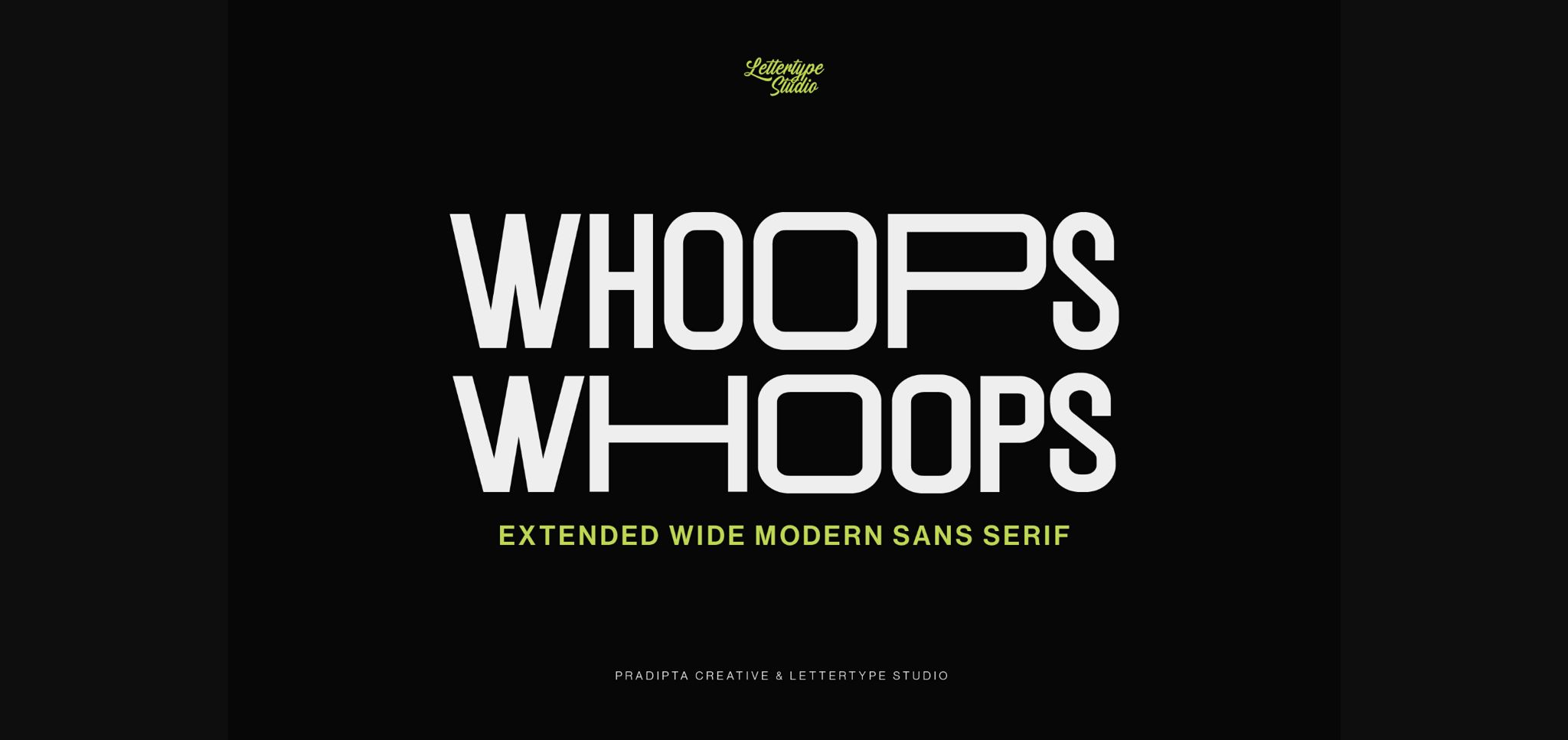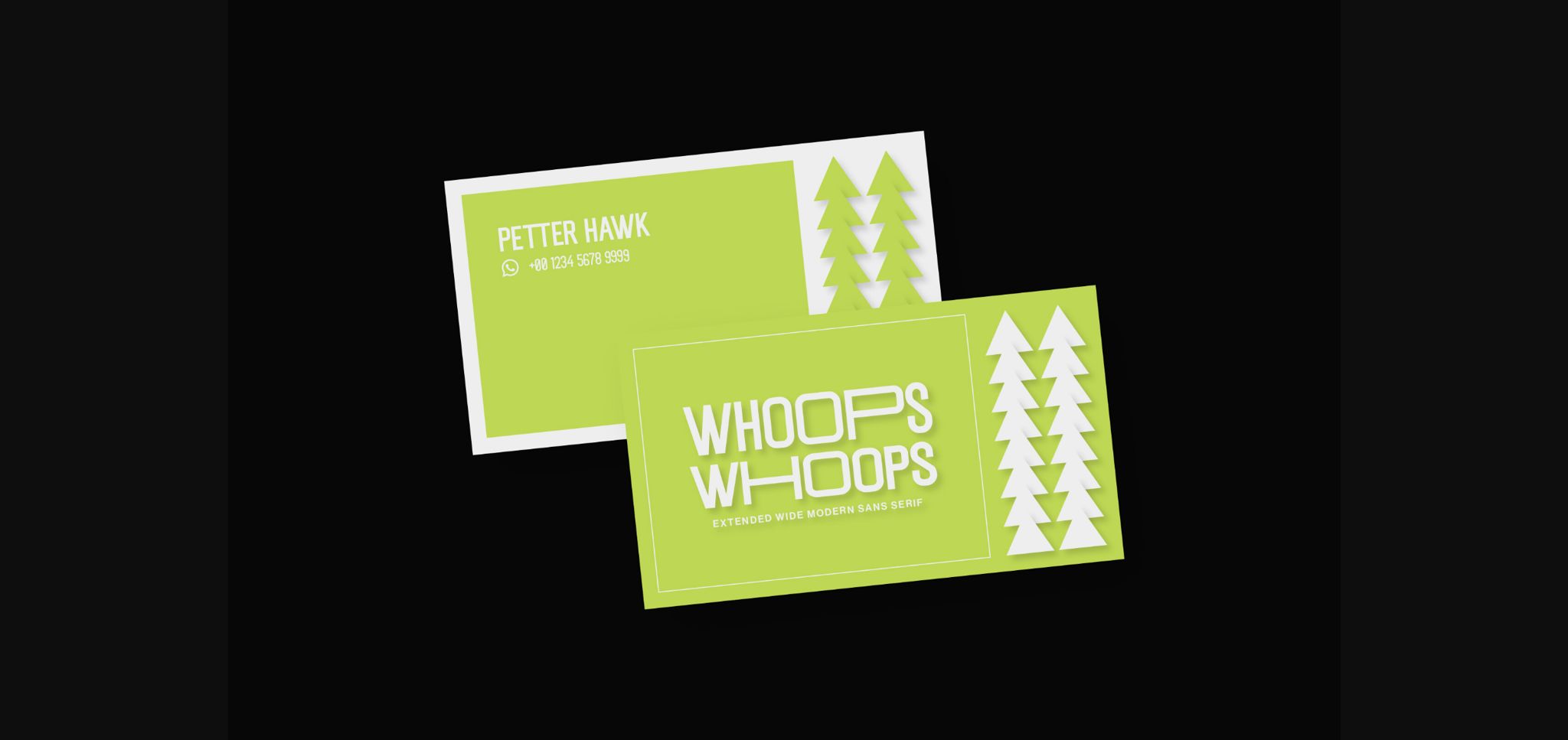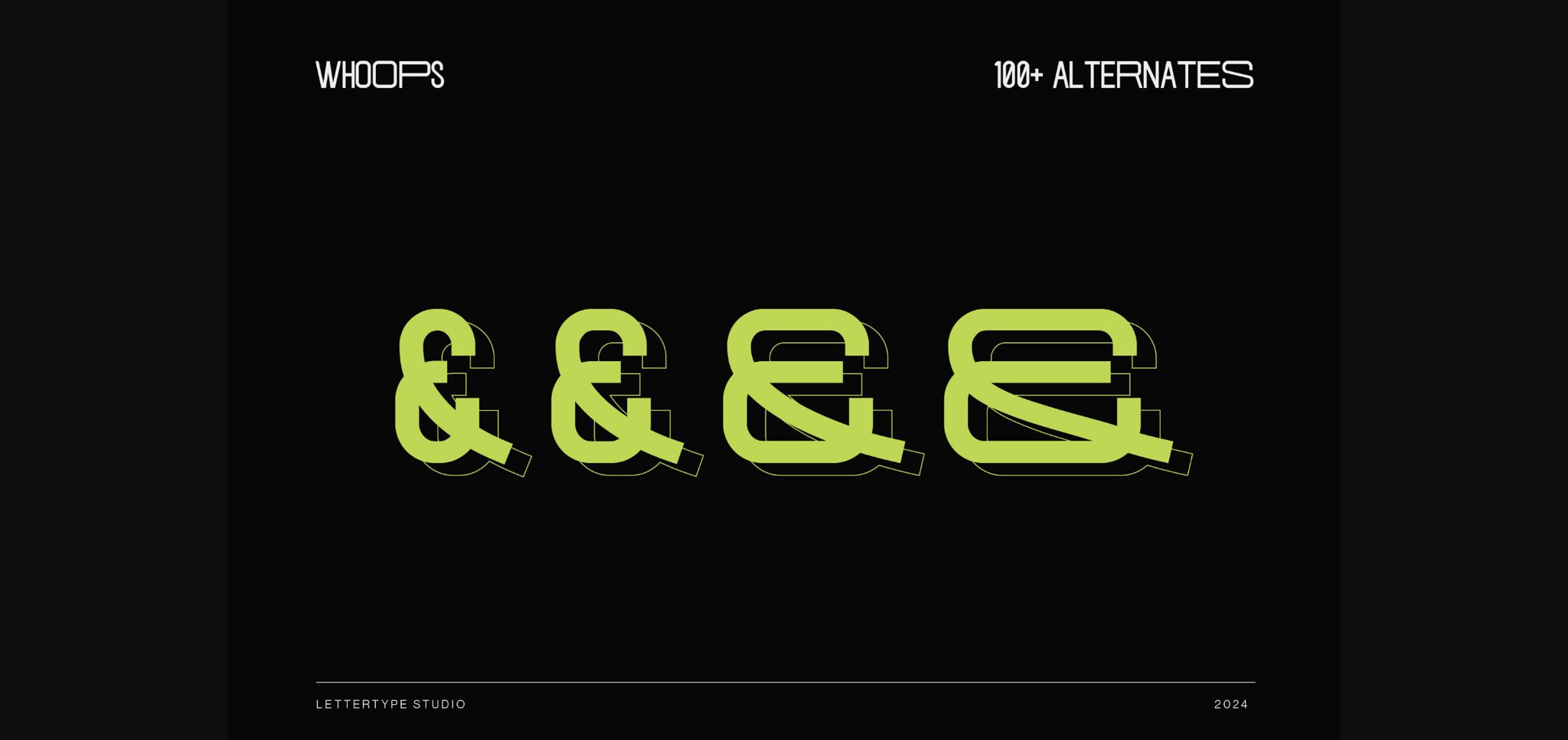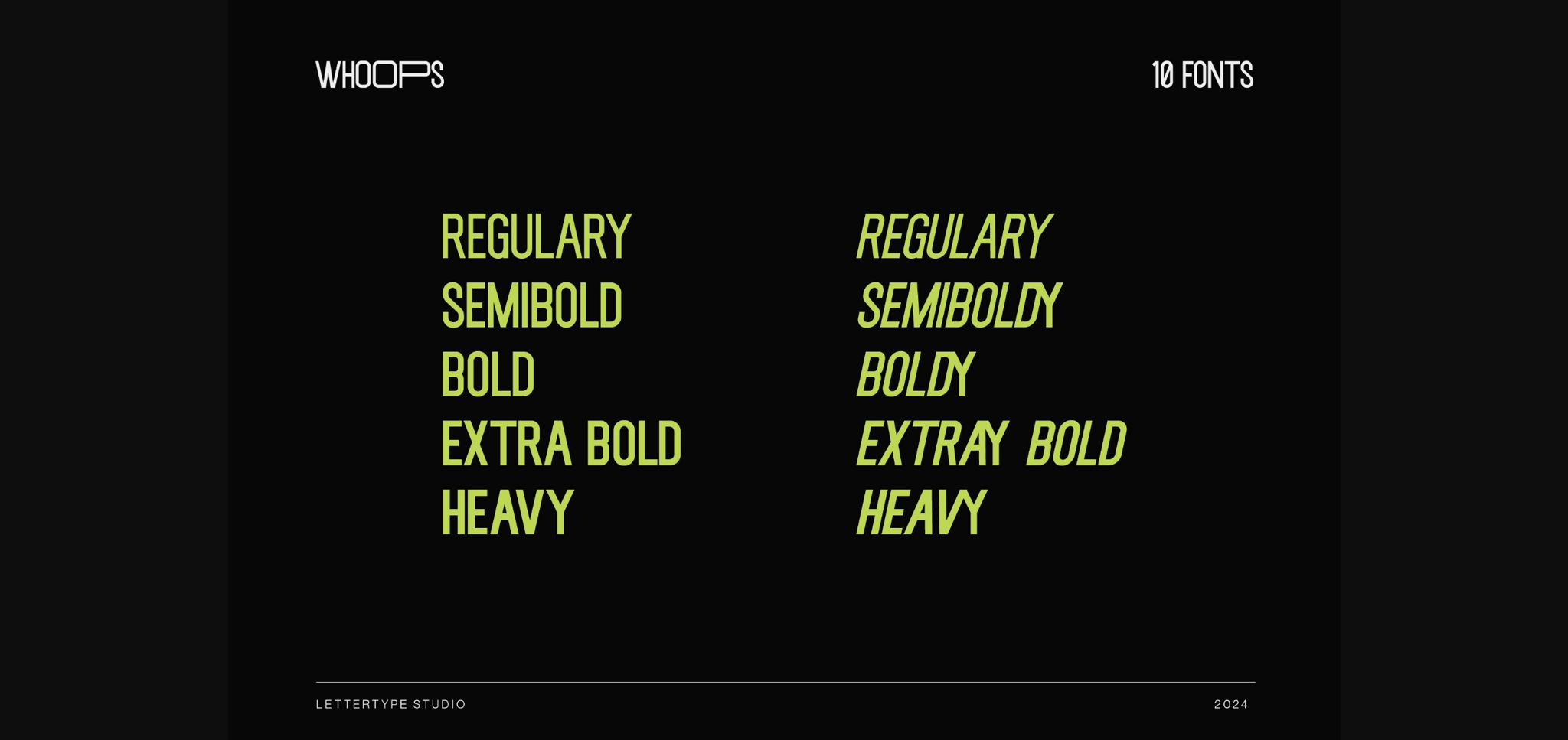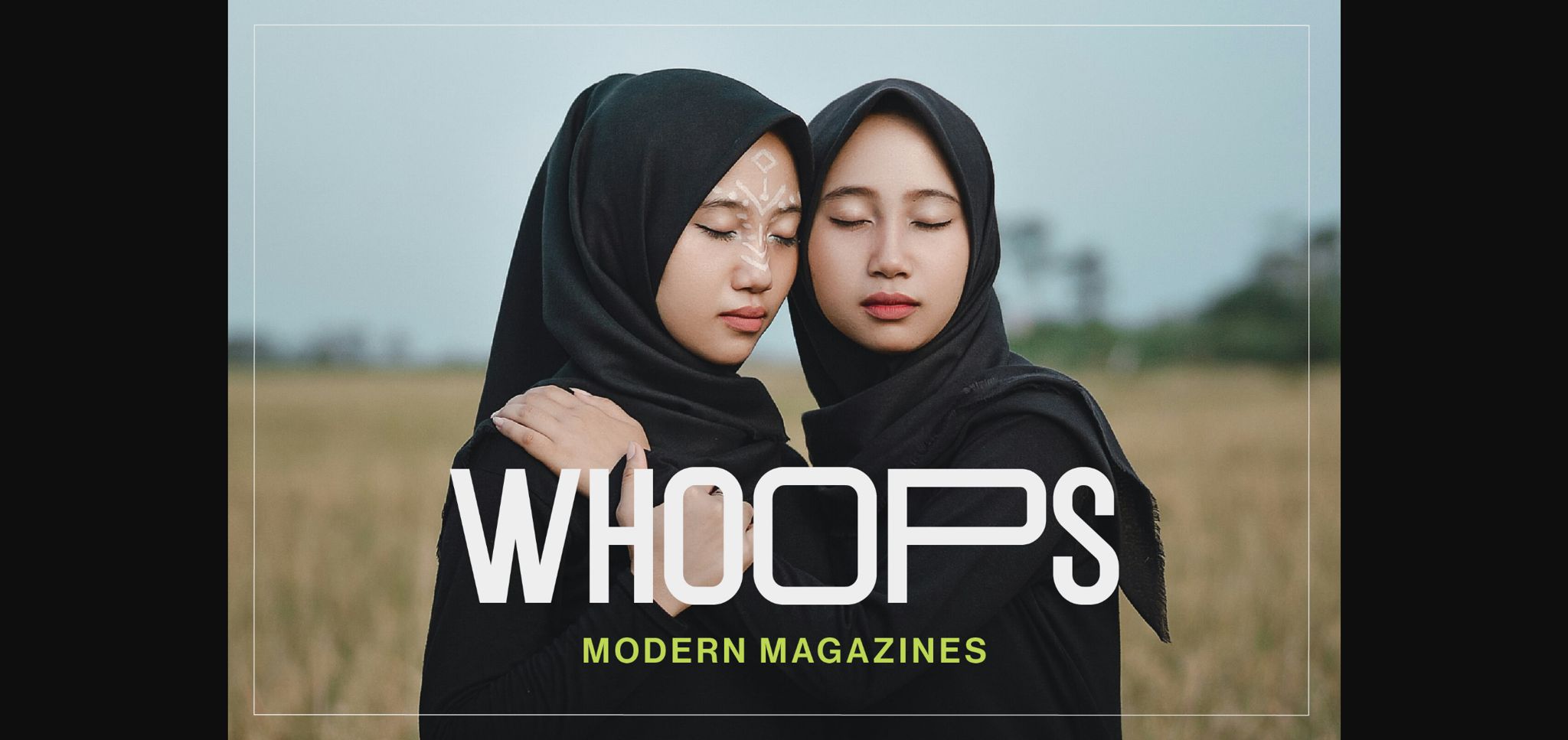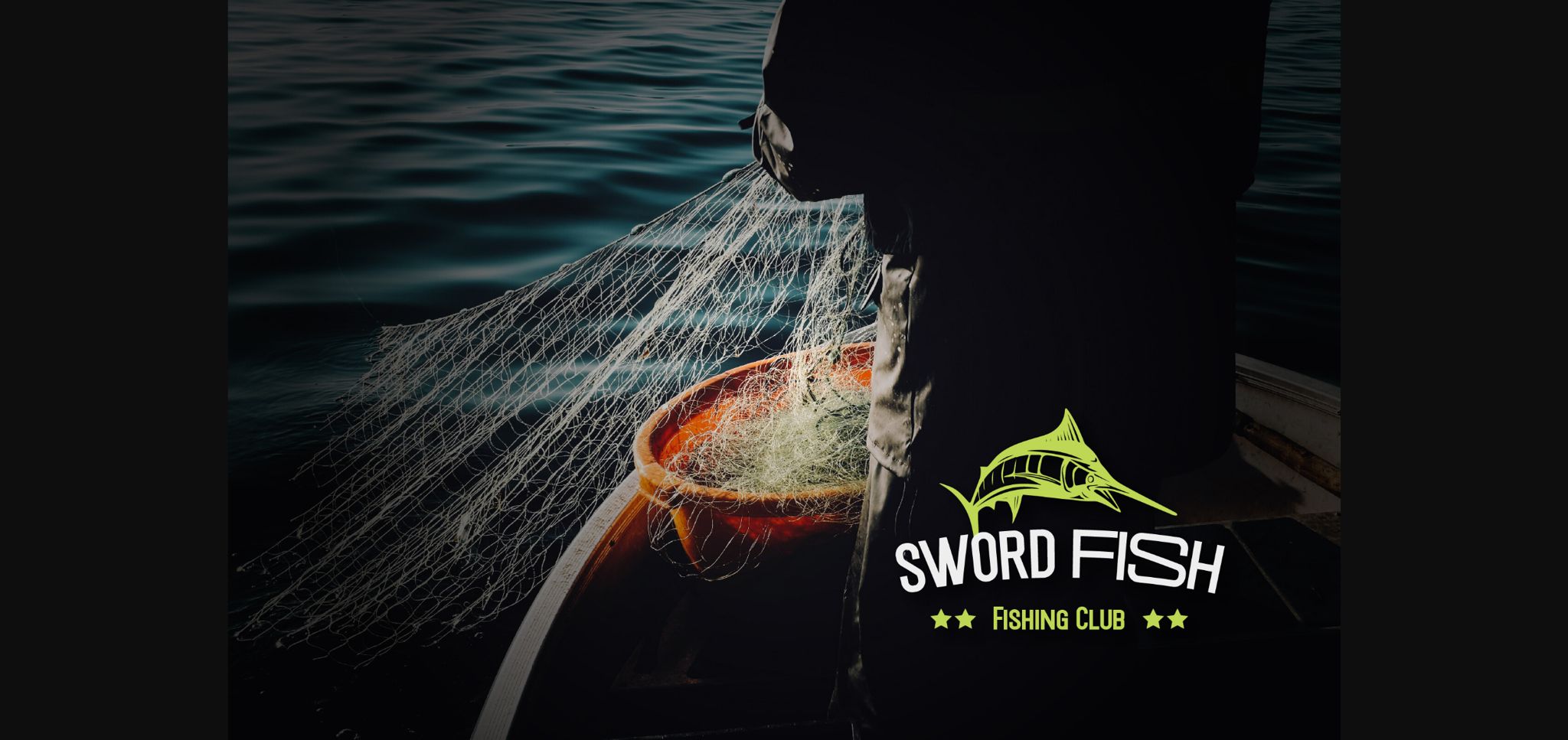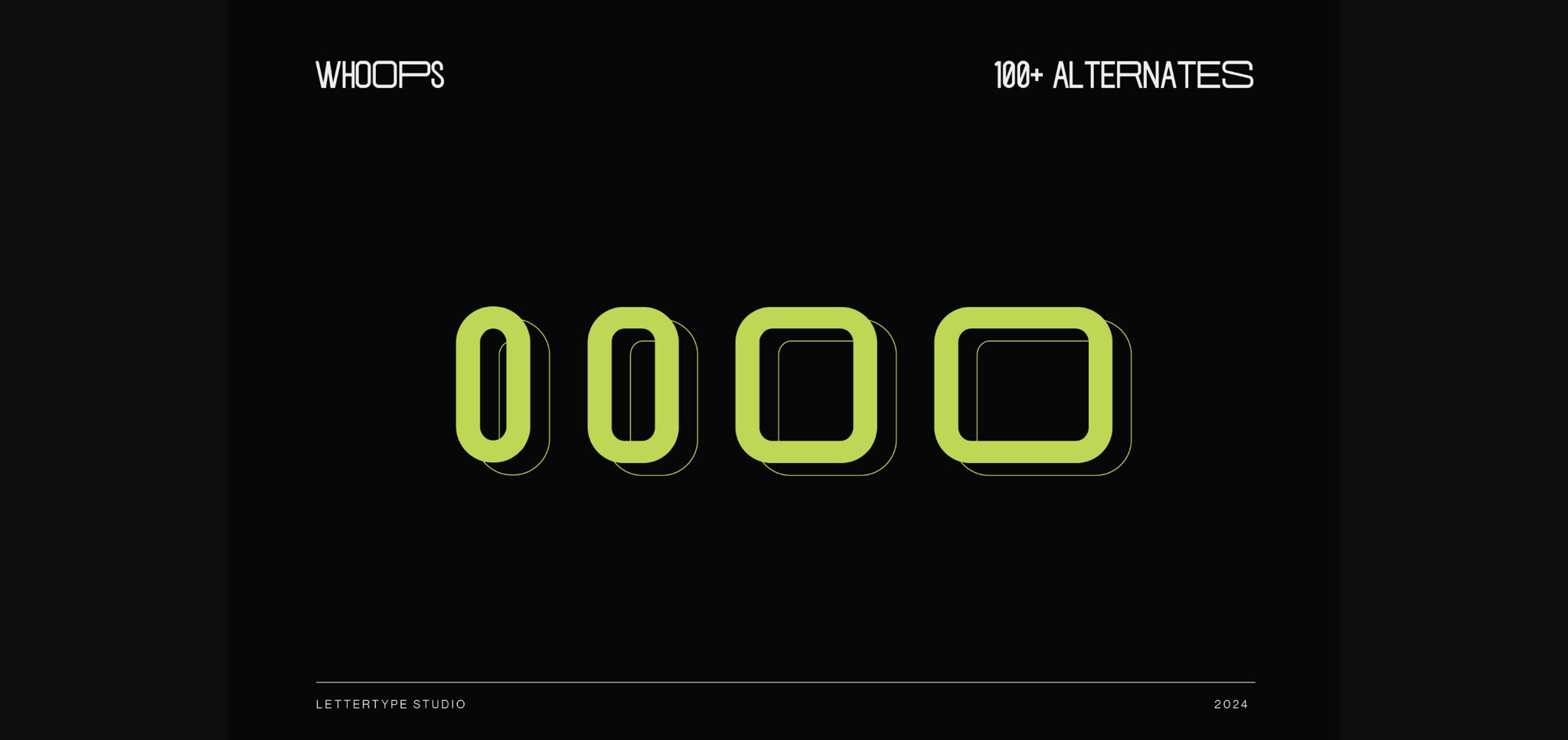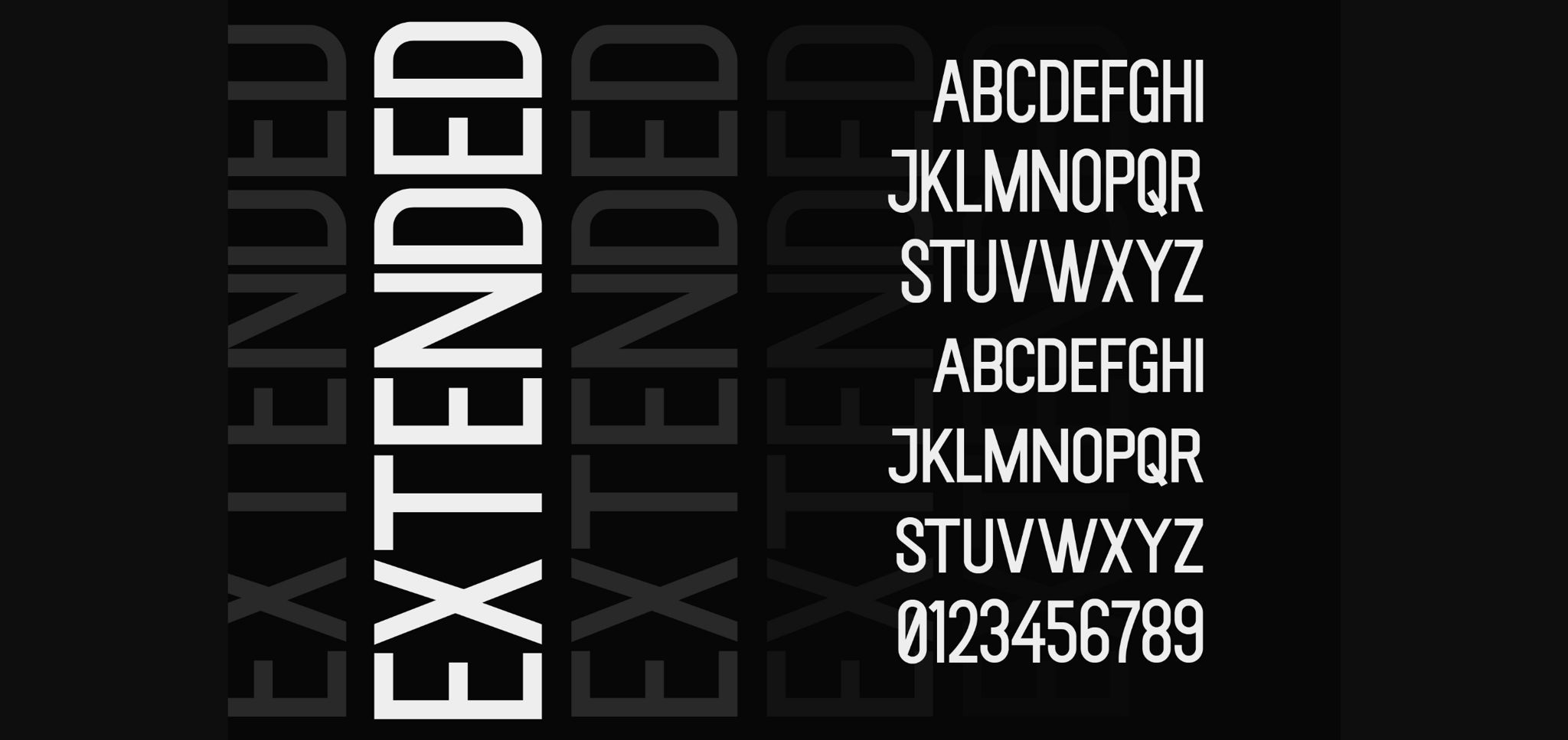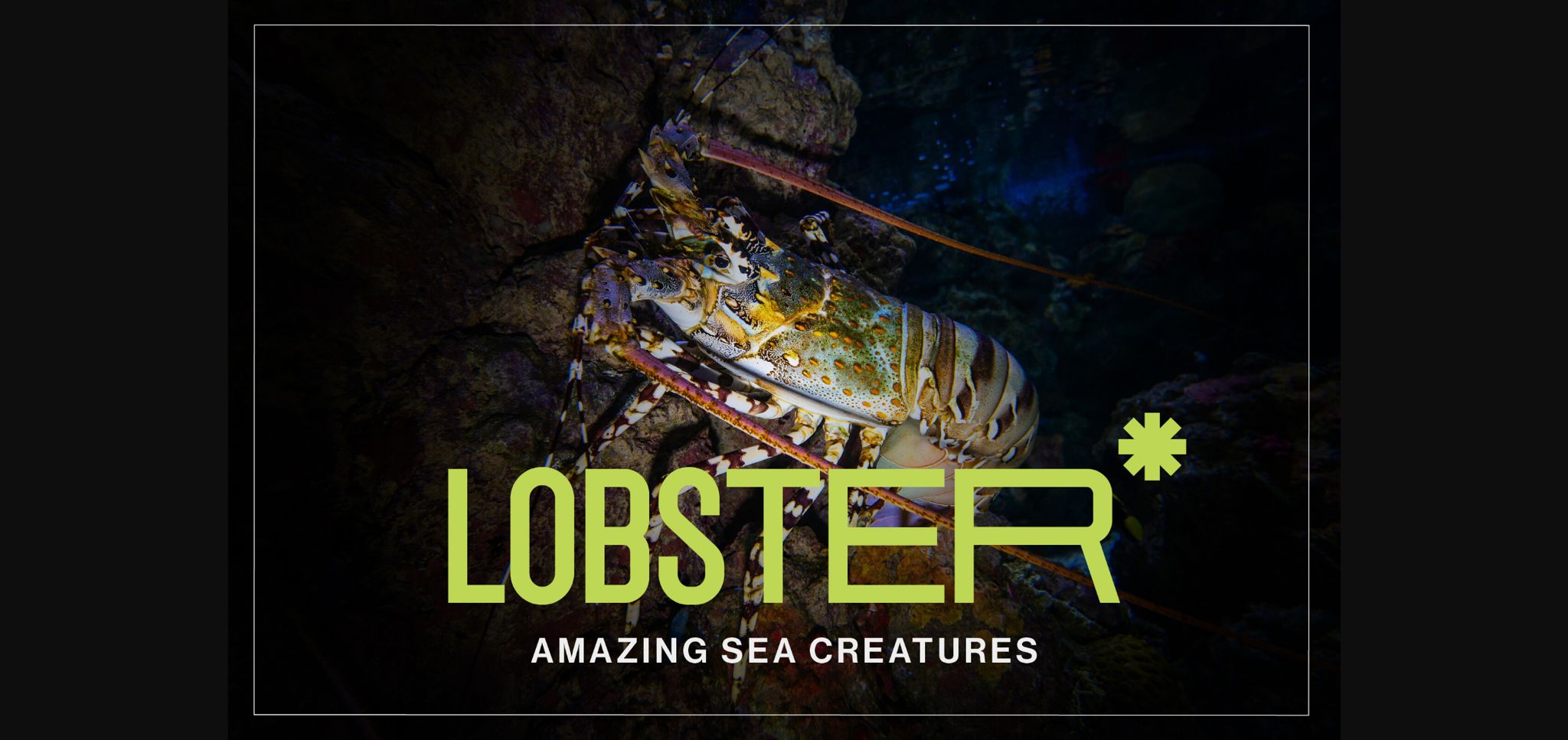
Whoops Font
About Whoops Font
Whoops is an extended wide modern sans serif font inspired by urban culture with strong and unique characters. Welcome to the new extended wide sans serif with over 100+ alternate glyphs for endless customization and creative control of your projects. This font will be perfect for photography, watermarks, social media posts, advertisements, logos & branding, invitations, product designs, labels, stationery, wedding designs, product packaging, subheaders or headers, special events, or anything.